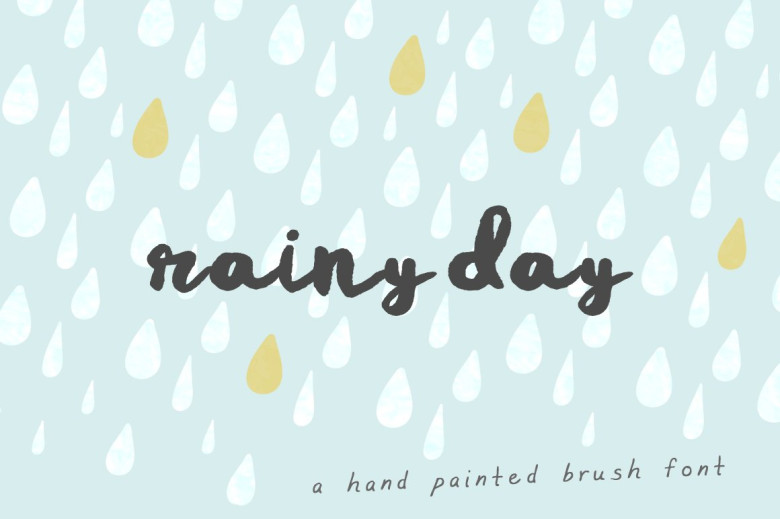
Rainy Day Font
Rainy Day Font is a beautiful hand painted brush font. Rainy Day is shared by pixelcolours. This is an improvised form of brush, with rough contours and seamless, with fonts you can use in design projects like book covers, billboards or even the logo …